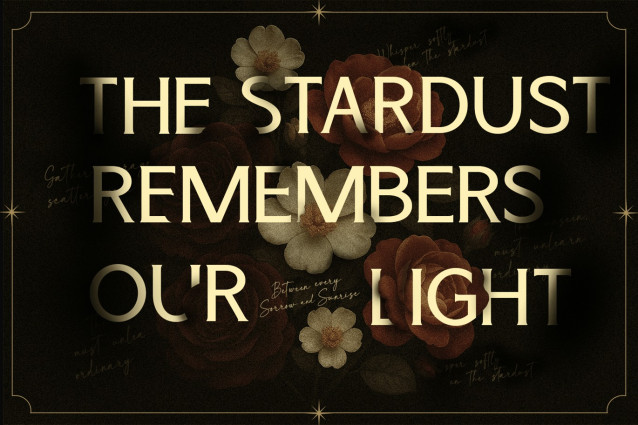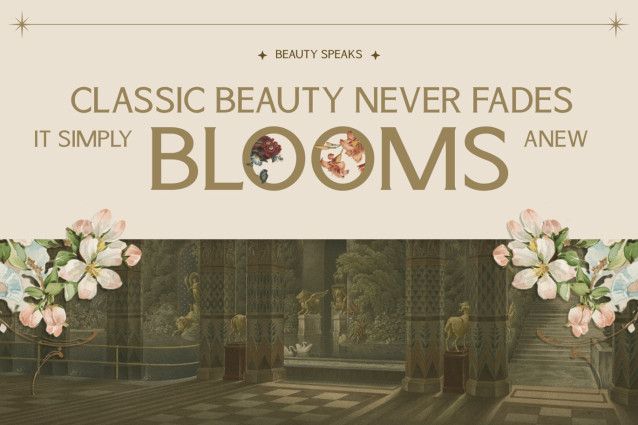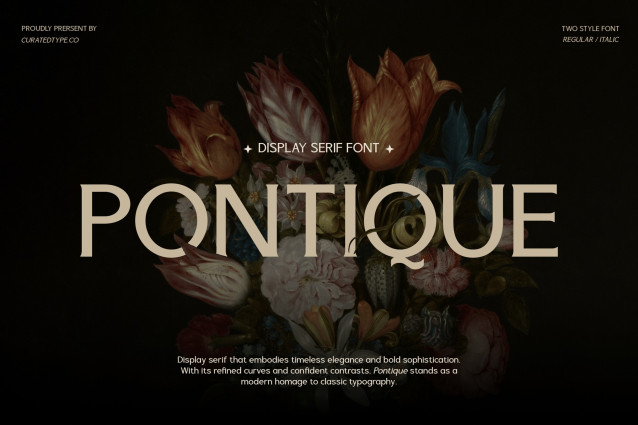
Pontique Font
Pontique Font is a sophisticated display serif that embodies timeless elegance through bold sophistication. Inspired by neoclassical typography, it features high-contrast strokes and refined, crisp serifs that command attention without being loud. The design balances varying stroke widths with flowing, assertive curves, creating a visual rhythm that is both sculptural and organic. The capital letters, particularly the broad “O” and distinctive “Q,” pay modern homage to traditional Roman proportions, making it ideal for headlines that require a touch of grandeur.
Beyond its structural beauty, Pontique is designed for versatility in high-end design. Including both a structured regular weight and a graceful italic, the typeface transitions seamlessly from authoritative editorial headings to delicate and romantic subheadings. With its full character set and multilingual support, this typeface is ideally suited for luxury brands, fashion editorials, wedding stationery, and packaging design where typography should be the centerpiece.